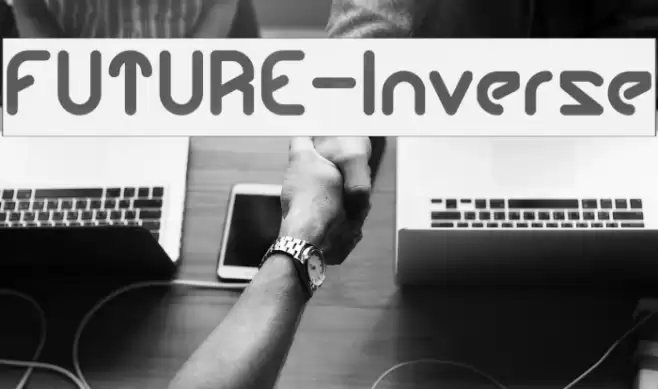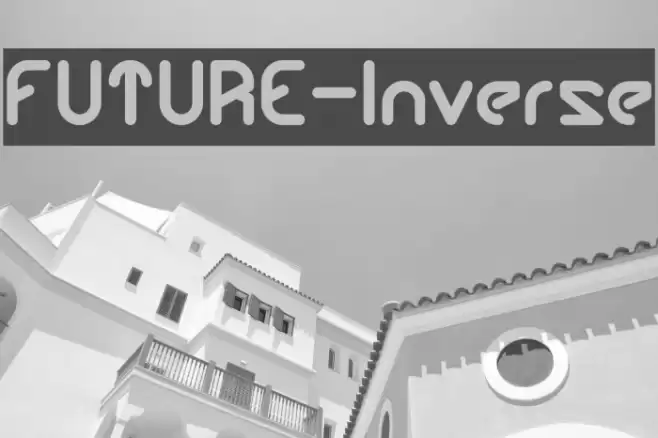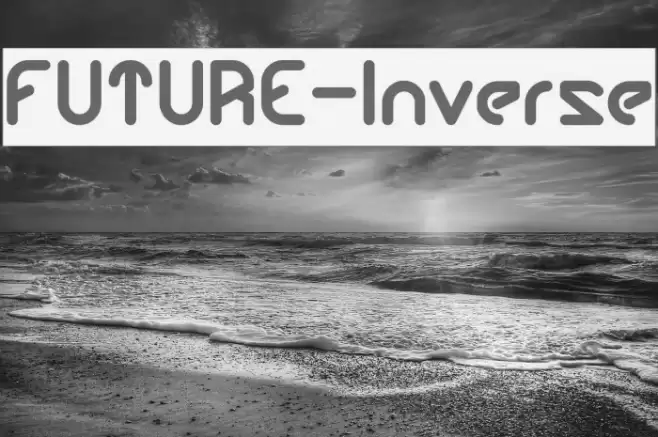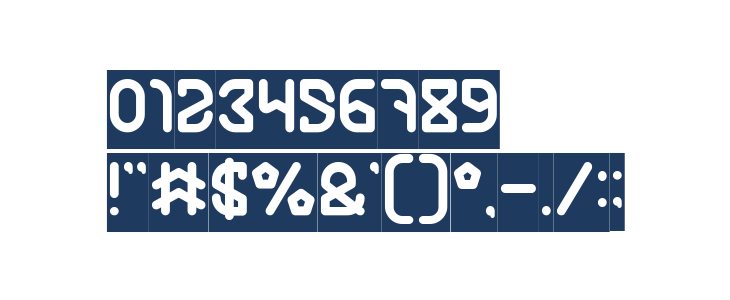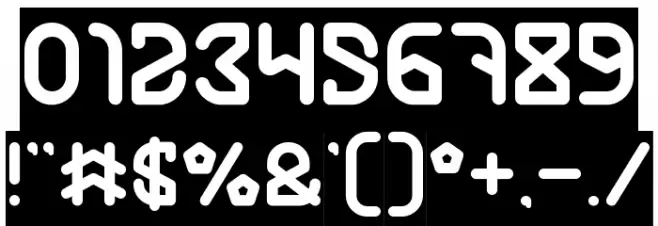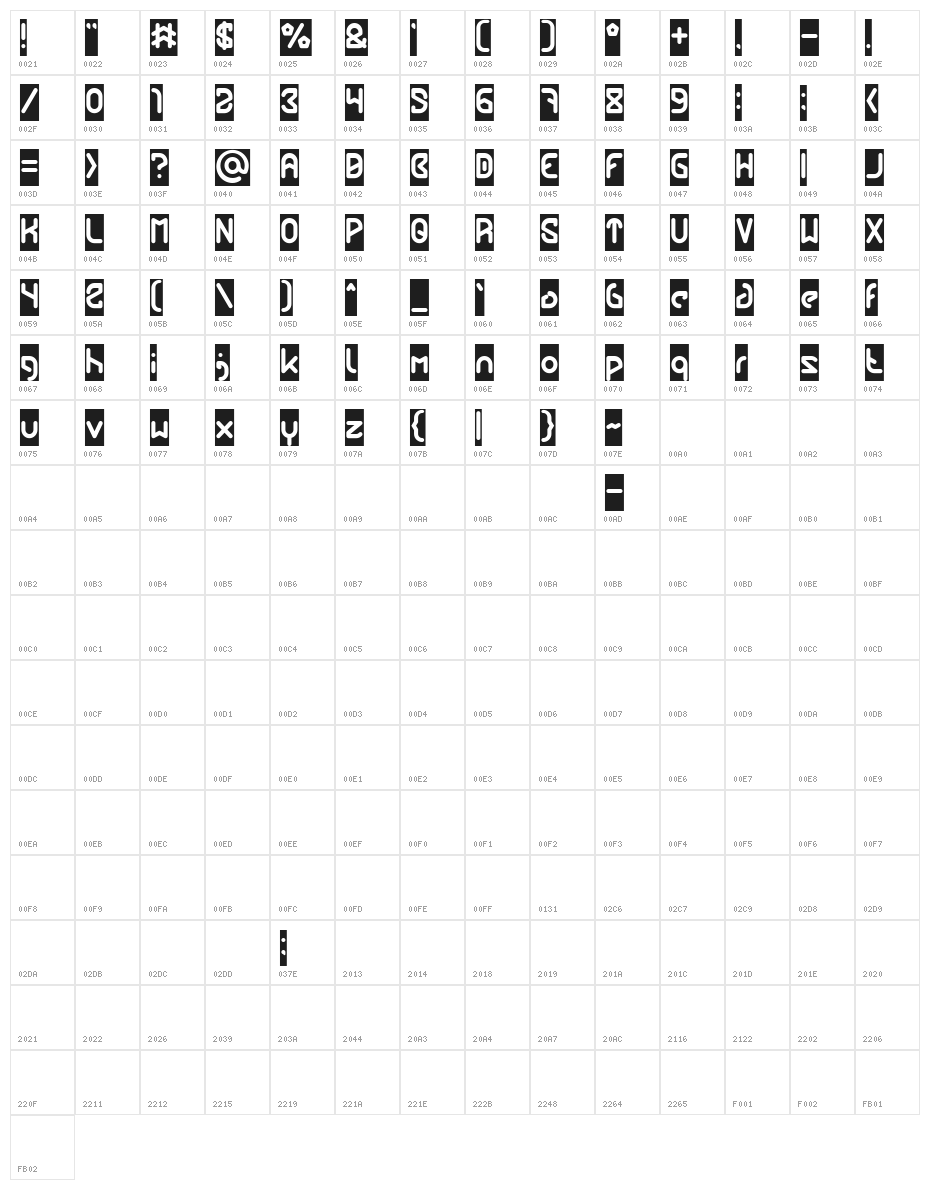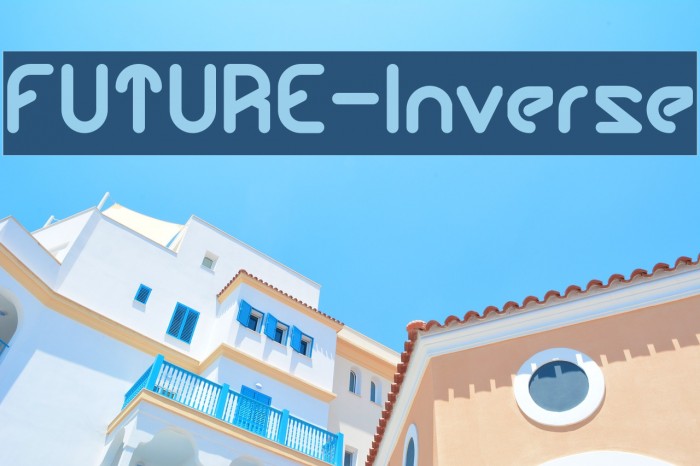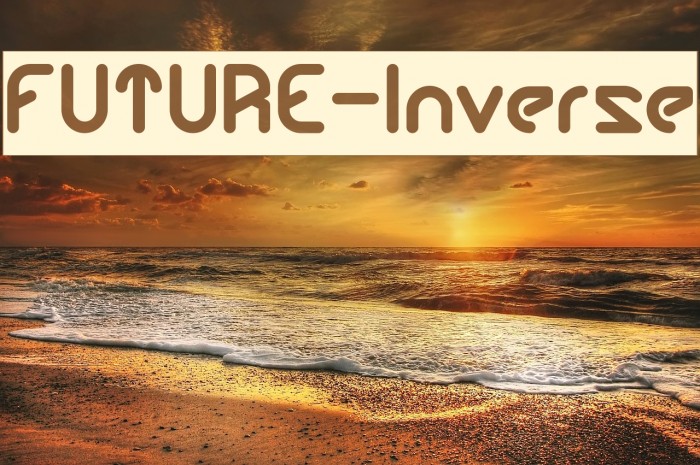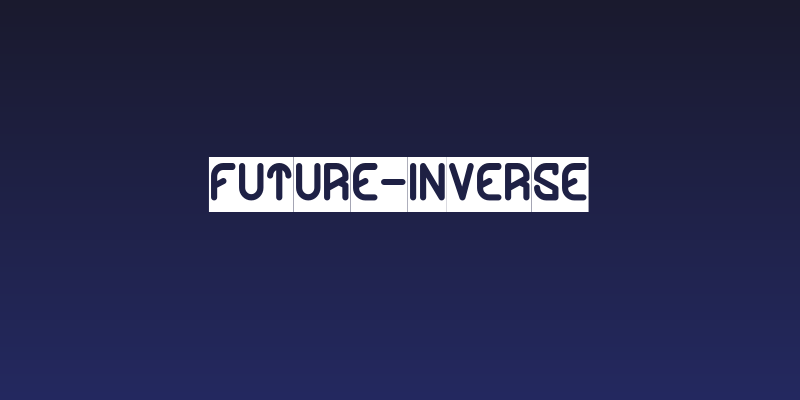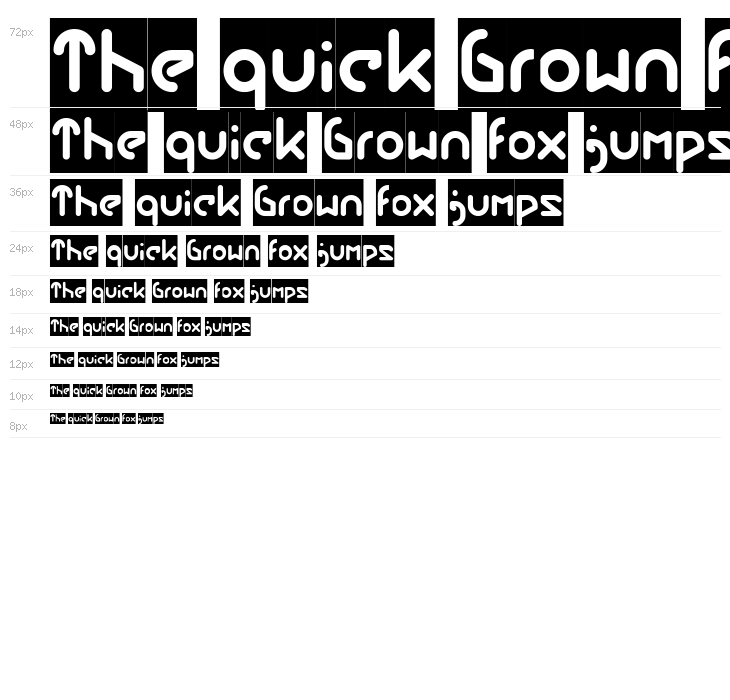
FUTURE-Inverse Font
FUTURE-Inverse Description
This font features a futuristic and geometric design with rounded edges and a consistent stroke width. The characters are bold and have a unique, modern aesthetic that stands out. The uppercase and lowercase letters maintain a uniform style, with the lowercase letters mirroring the uppercase in a slightly smaller size. Numbers and special characters are designed to complement the alphabet, maintaining the same geometric and rounded style. The overall appearance is clean and minimalistic, making it suitable for contemporary design projects.
A futuristic, geometric font with rounded edges and consistent stroke width from Uncategorized fonts.
- Proposed Projects: Ideal for technology branding, sci-fi themed designs, modern advertising, and digital interfaces.
- Use Case: Headlines, Logos, Digital interfaces